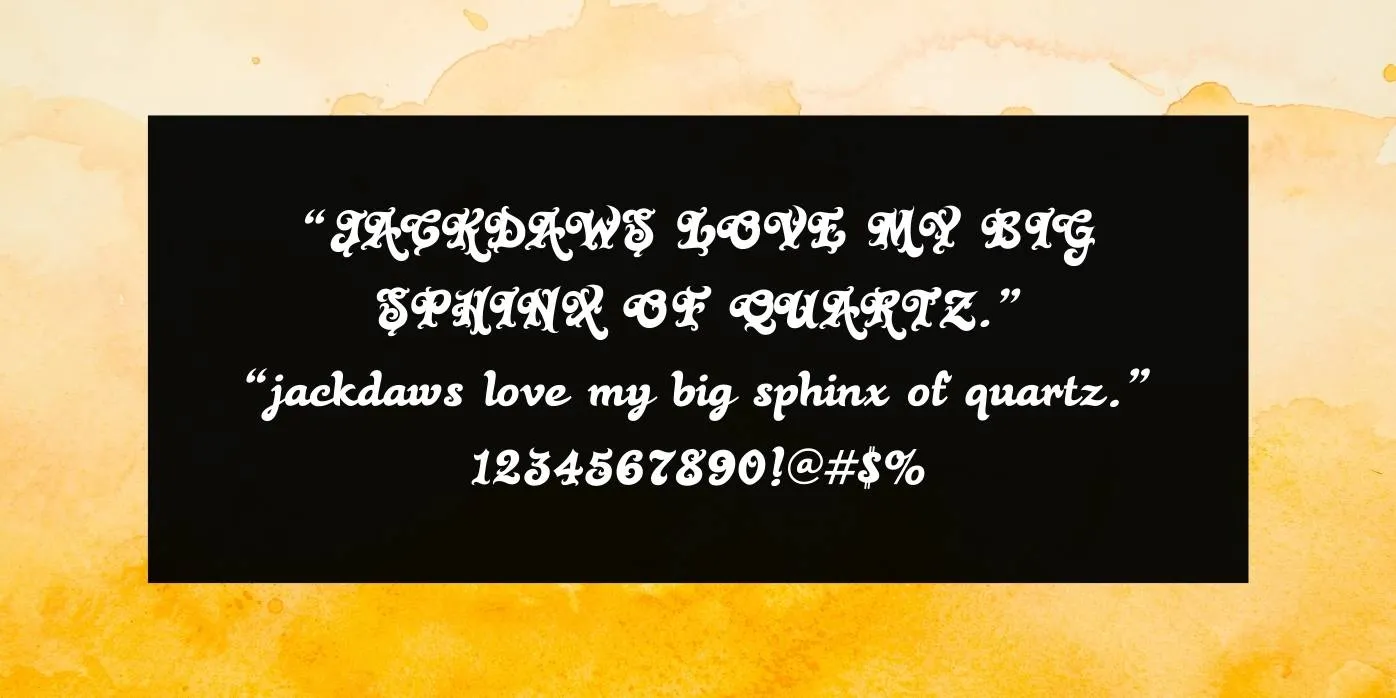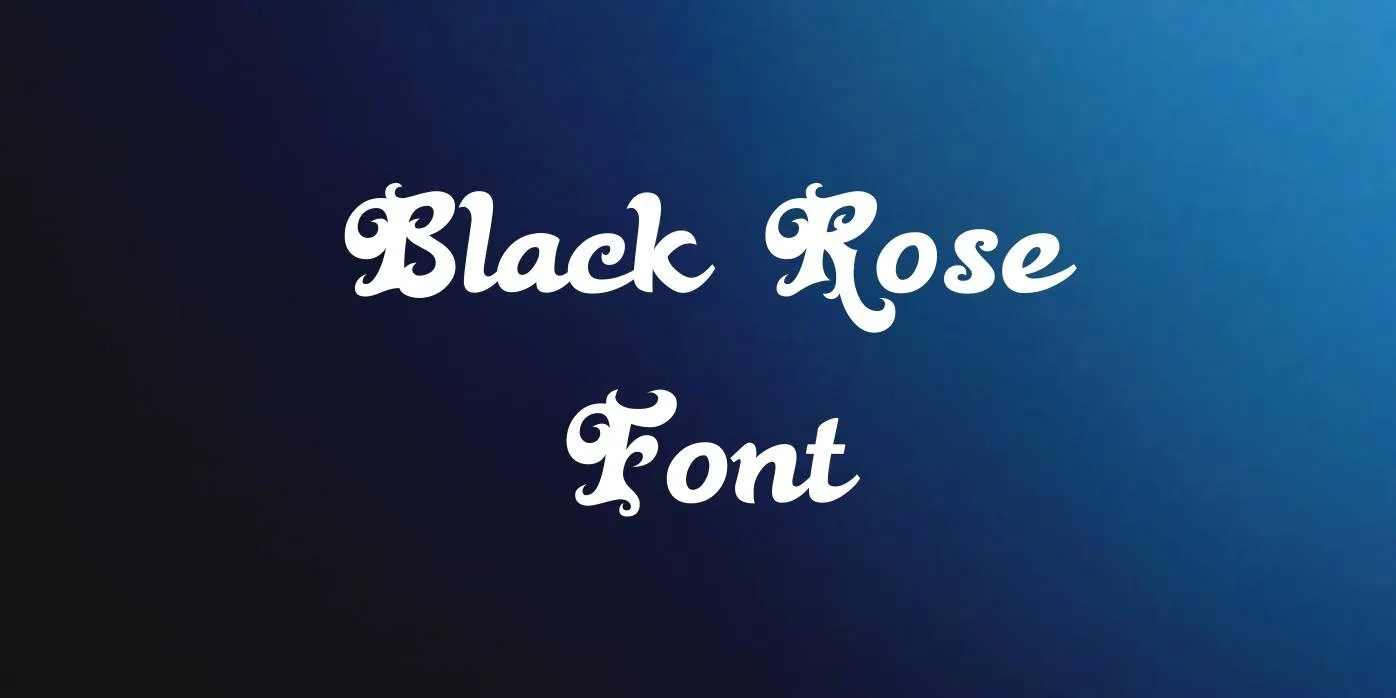
≠Black Rose Font
Black Rose Font is a very beautiful and amazing font which was designed by Billy Argel. It Is a fancy font launched by Bright Ideas Magazine. It has 248 characters, 293 glyphs, and 1000 units per Em. This font allows embedding rights for editing.
The weight of the font is Semi-Bold and the width of the font is medium (normal). Mac style of this font is Bold and the direction of writing followed by this font is strongly left to right including neutrals. The patterned nature of this font is regular. Its pitch is not monospaced.
This font is a unique and nice font that can be used for making many projects. It can also be paired with other fonts like wakanda font to give a more attractive look to your project. It supports file formats TTF (True Type Font) and OTF (Open Type Font).  You can download it on many devices such as Windows, Linux, and Android. Usage This unique and different can be used in various projects.
This font can also be used to create your simple text into a stylish look by using an online generator tool which can make your copy-paste easy to use. It can be used for making designs on T-shirts. It is a famous font for designing sports-related items like sports shirts and shoes etc. This font has characters, capital letters, small letters, symbols, numbers, punctuations, and special characters.
So, it has a wide range of glyphs that can be used for making many projects. It can also be used for making wedding invitations, creating logos of different brands, making posters for promotions, and branding purposes. This font is a suitable choice for kid’s material because of its friendly and cute look it can also be used in fashion magazines. You can use this font for both purposes print and digital media.
Who is the designer of Black Rose Font? This typeface was designed by Billy Argel. Copyrights©2019 all rights are reserved. It is a fancy font launched by Bright Ideas Magazine.